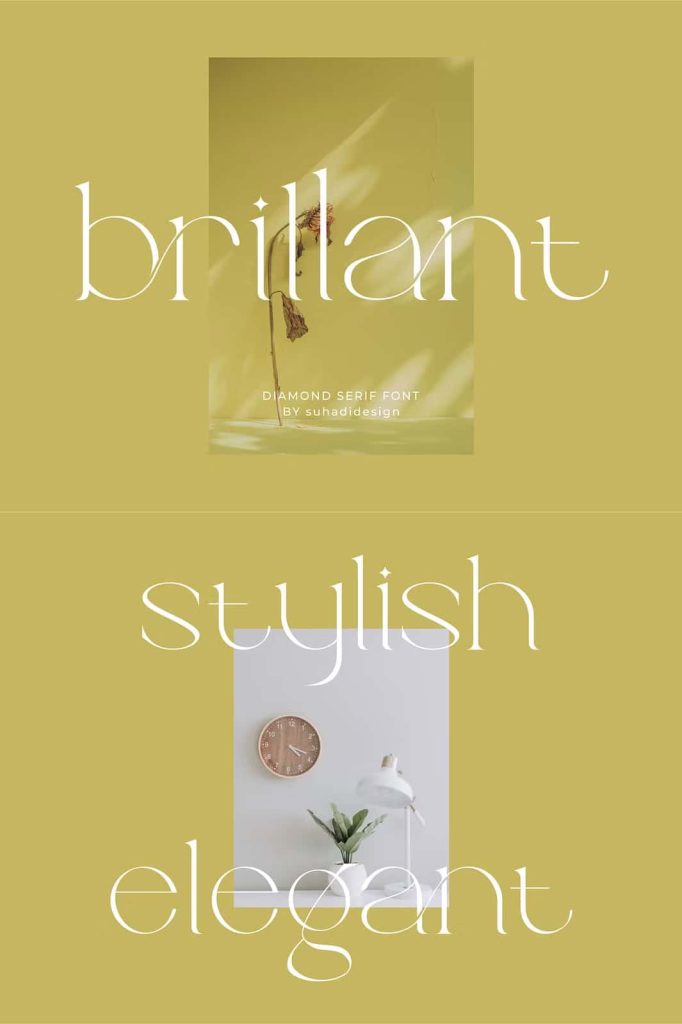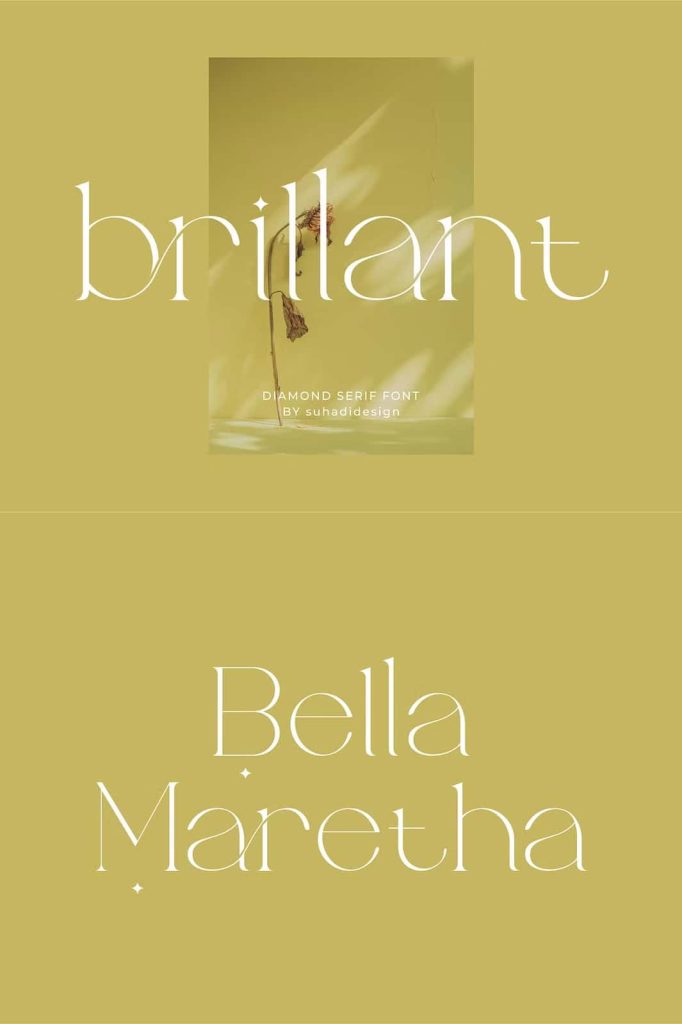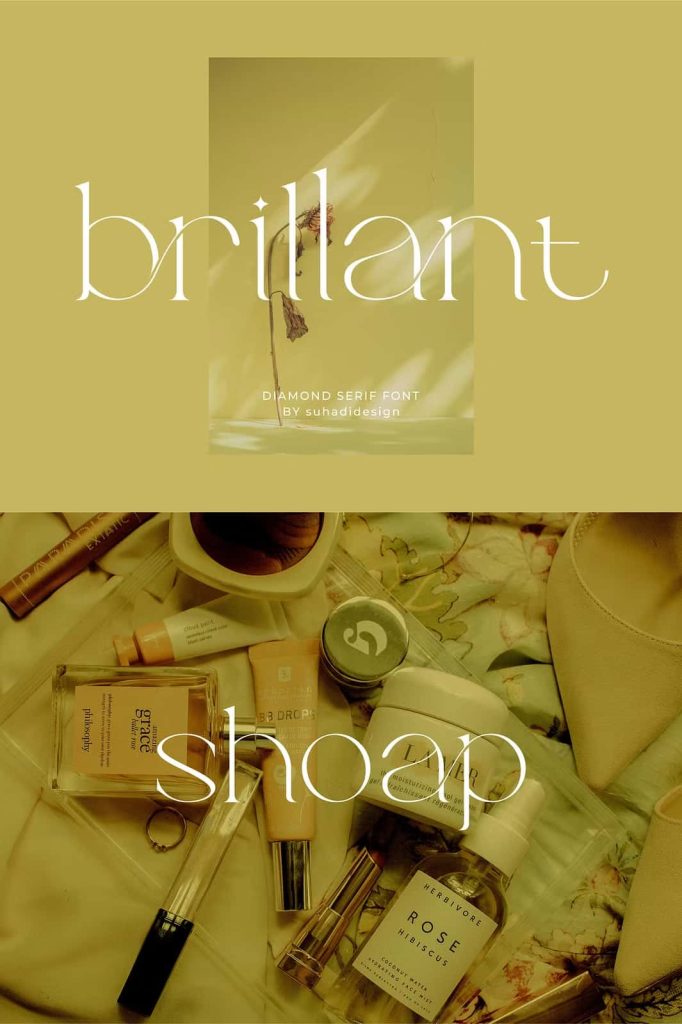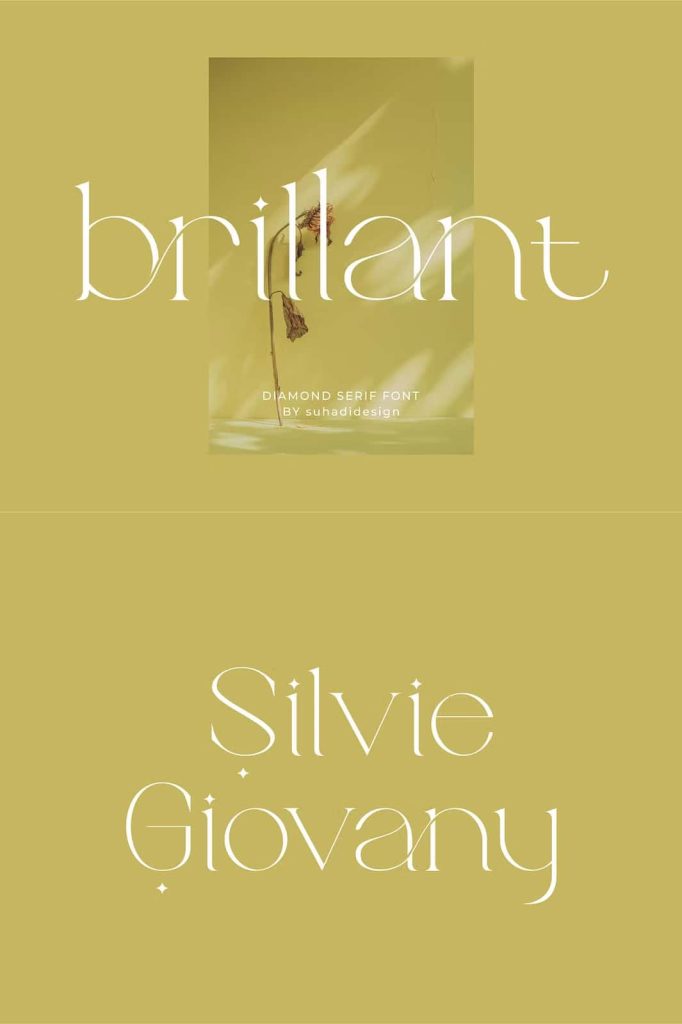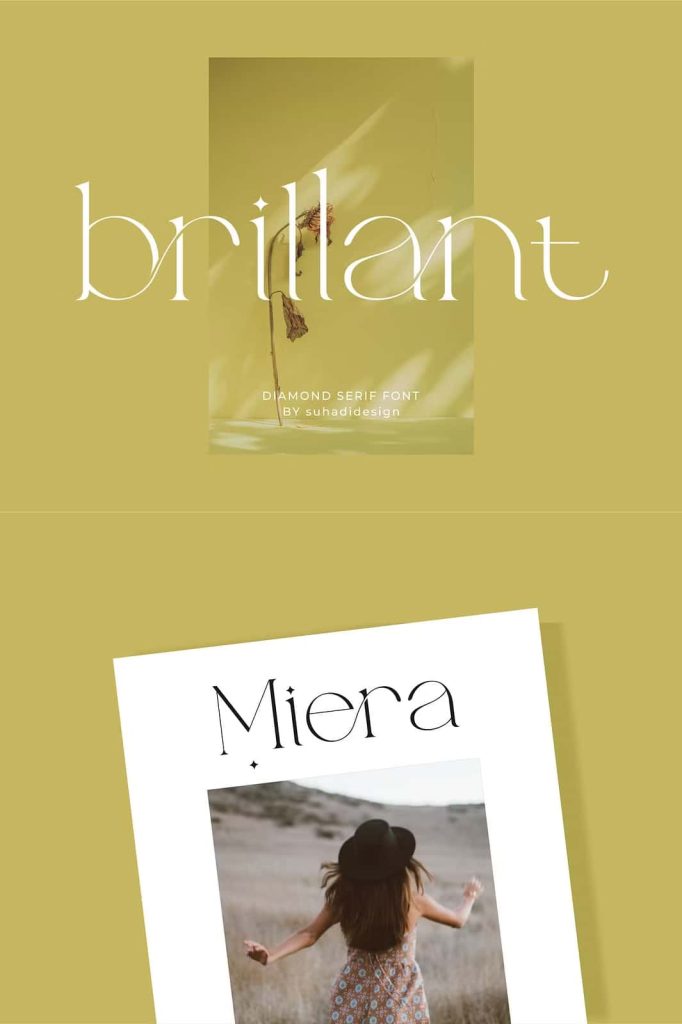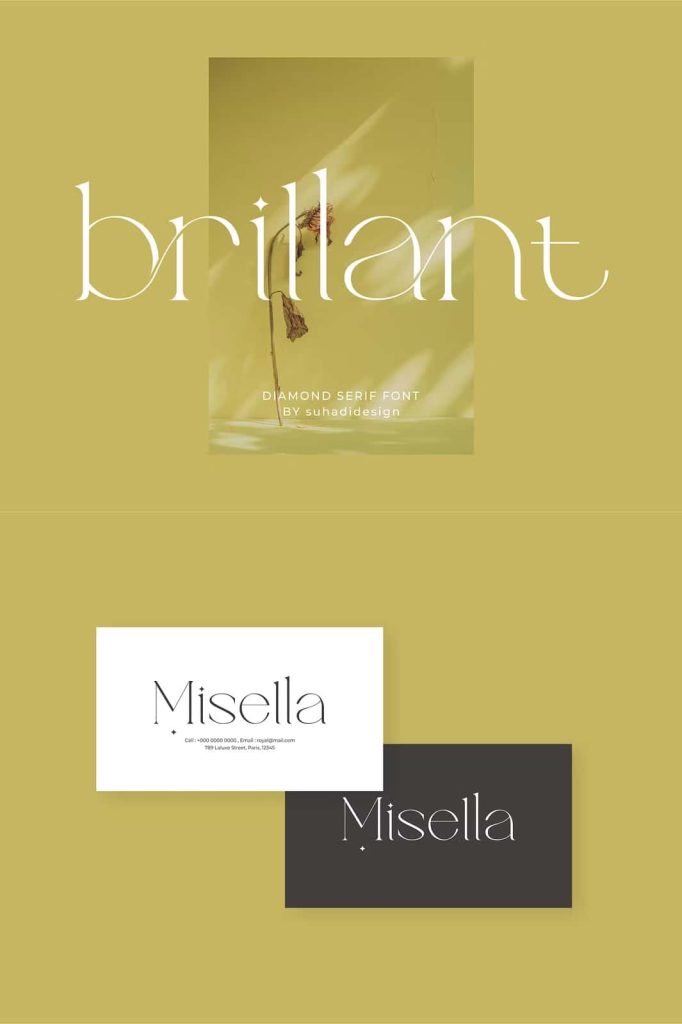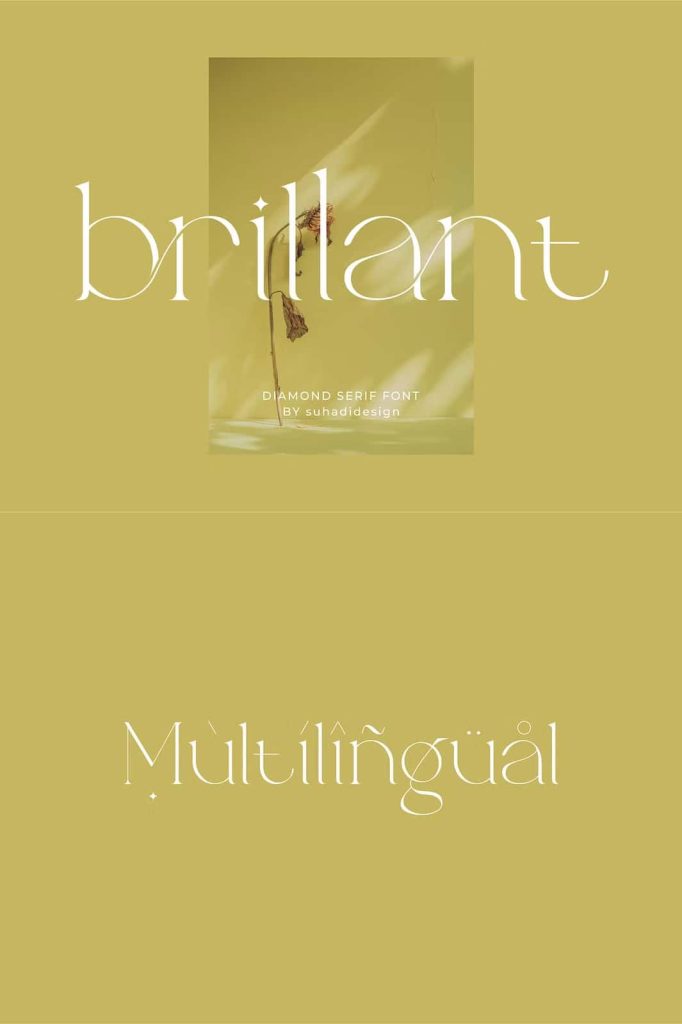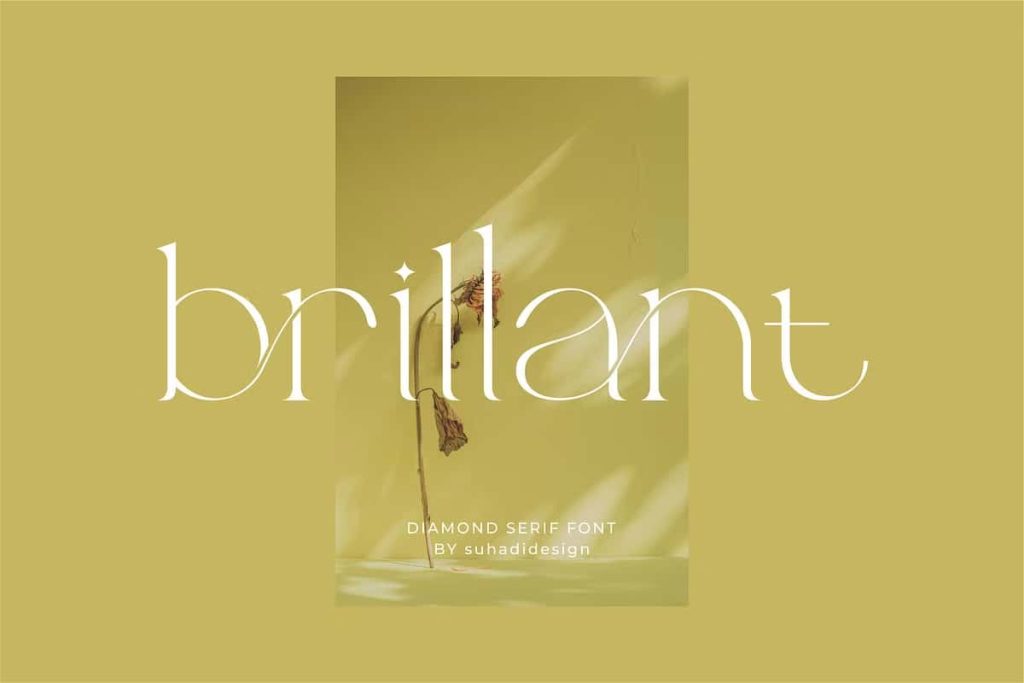
Brillant – Stylish Ligature Serif
Hi ladies and gentlemen! The latest stylish modern font has arrived which is a font that many ladies and gentlemen are looking at